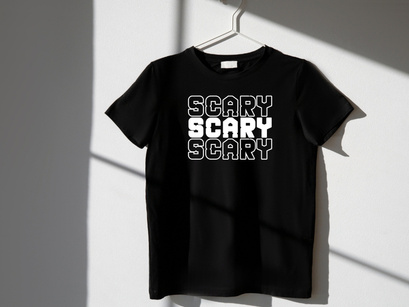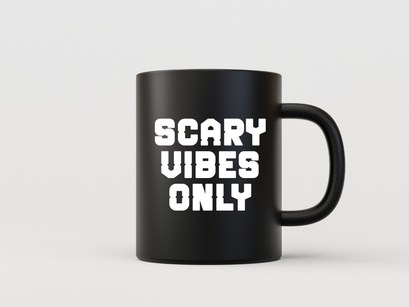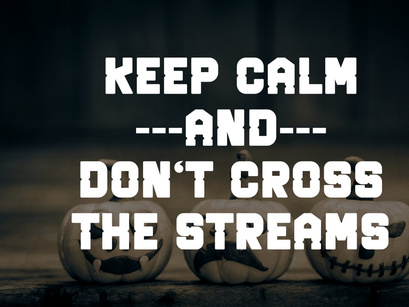
Ghost Buster - Condensed Quirky Font
Ghost Buster
Ghost Buster is a super bold and blocky Condensed Quirky Font, perfect for projects demanding a fun, retro, and slightly spooky aesthetic. Its chunky, playful style is ideal for attention-grabbing headlines, Halloween event posters, children's apparel, vintage branding, and logo design. This all-caps display font brings a strong, nostalgic, and whimsical touch to any design, making it a powerful choice for both seasonal and cartoon-inspired themes.